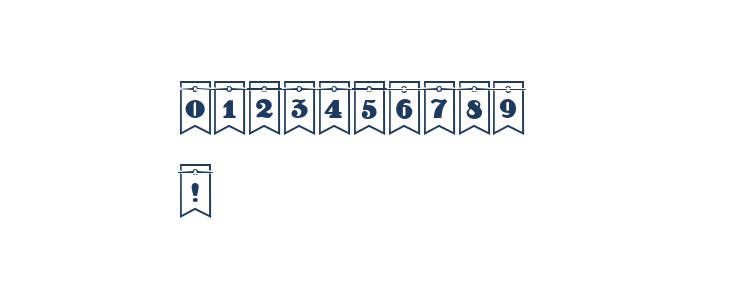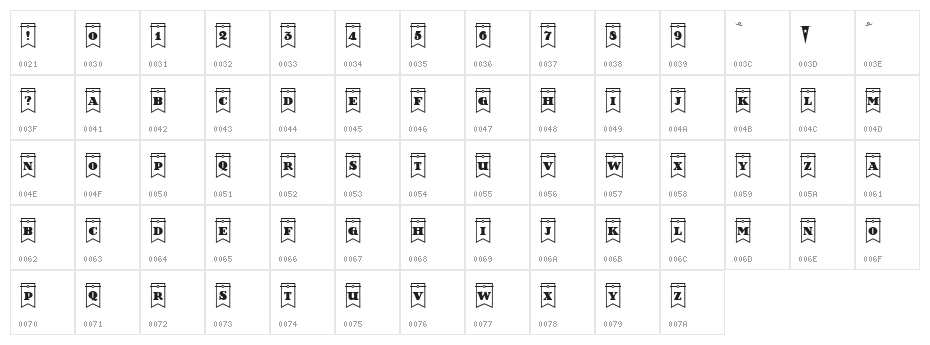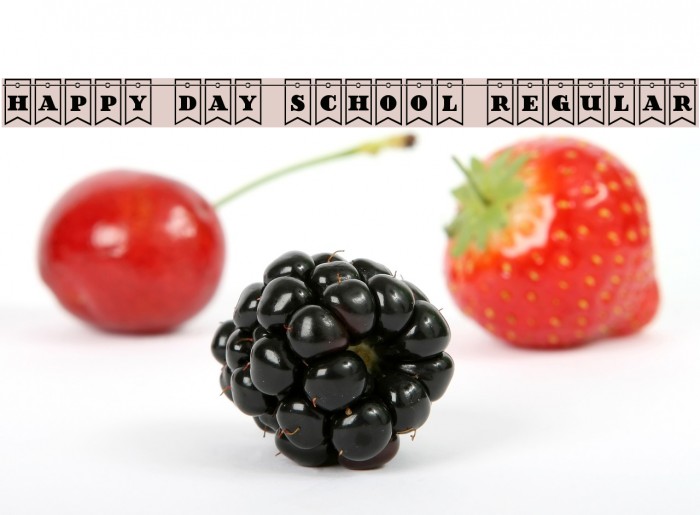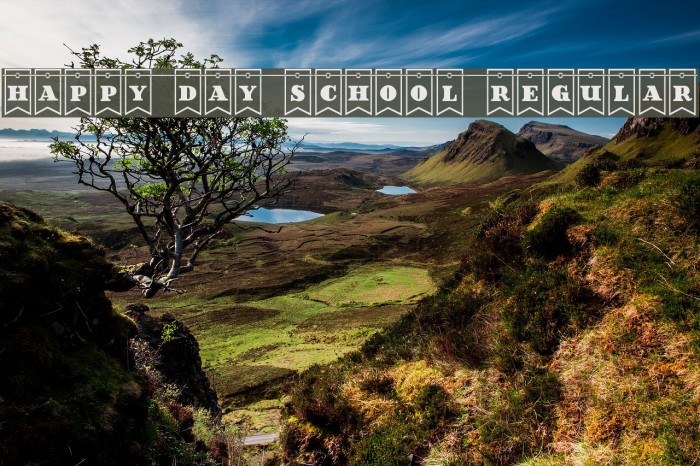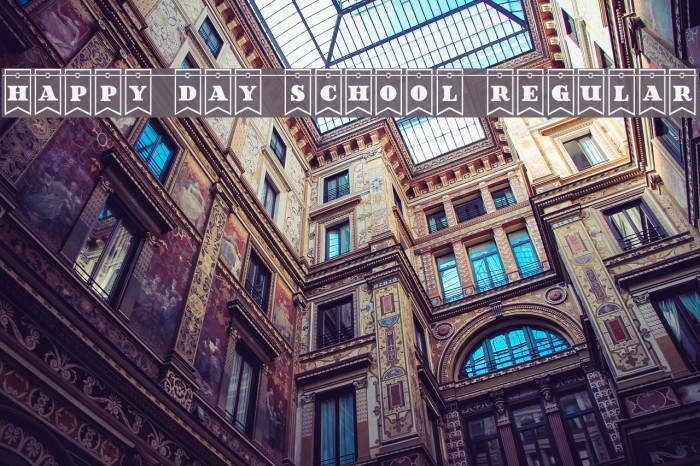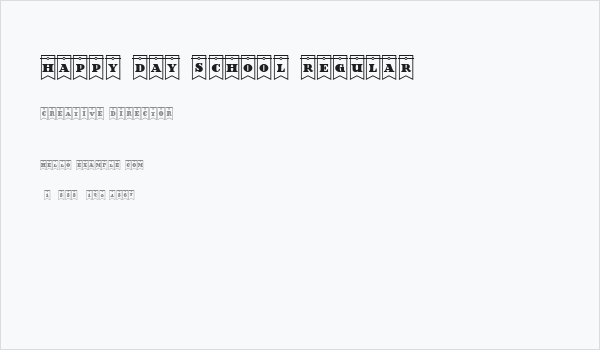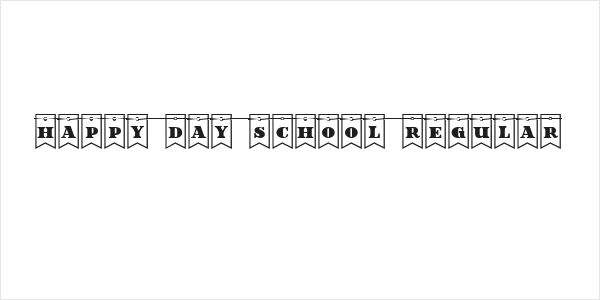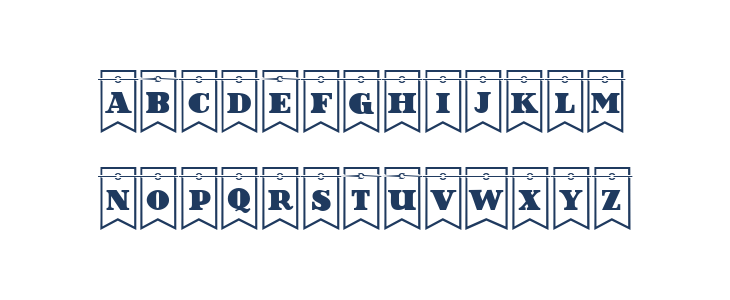
Happy Day School Regular Font
Happy Day School Regular Description
This font features bold, uppercase letters displayed on individual banner-like backgrounds, giving it a festive and celebratory appearance. Each character is enclosed within a triangular pennant, complete with a small circular hole at the top, suggesting it could be strung together like a garland. The letters are bold and have a classic serif style, with strong, thick strokes that convey a sense of stability and tradition. The numbers and special characters follow the same design, maintaining consistency throughout the set. This font is visually striking and would stand out in any design, making it ideal for attention-grabbing headlines or decorative purposes.
| Use Case | Headlines, Logos, Decorative elements |
| Proposed Projects | Ideal for party invitations, festive banners, school events, or any celebratory design project. |